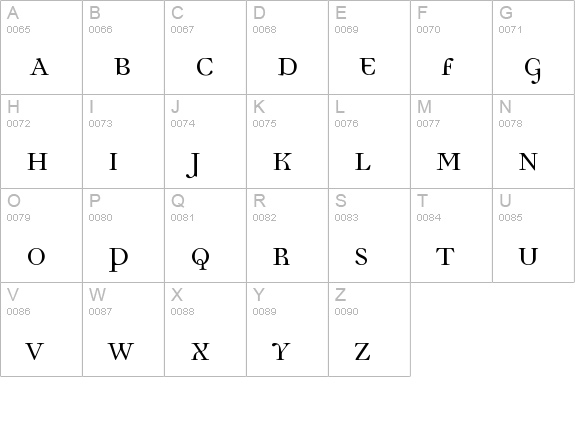
DemocraticaRegular Medium Font Details
DemocraticaRegular Medium is a balanced, medium-weight variant in the DemocraticaRegular typeface family \xE2\x80\x94 well suited to sub-headlines, navigation, and balanced editorial work.
DemocraticaRegular Medium font is a versatile and modern typeface that strikes the perfect balance between professionalism and readability. With its clean lines and balanced proportions, this font is ideal for a wide range of design projects, from branding to editorial design. The medium weight of DemocraticaRegular adds a touch of sophistication and elegance to any text, making it perfect for headlines, subheadings, and body copy alike. Its timeless design ensures that your message will always be conveyed with clarity and impact. Best of all, DemocraticaRegular Medium font is available for free download at FontsMarket.com. Take advantage of this opportunity to enhance your projects with a high-quality font that will elevate your designs to the next level. Download DemocraticaRegular Medium today and see the difference for yourself.